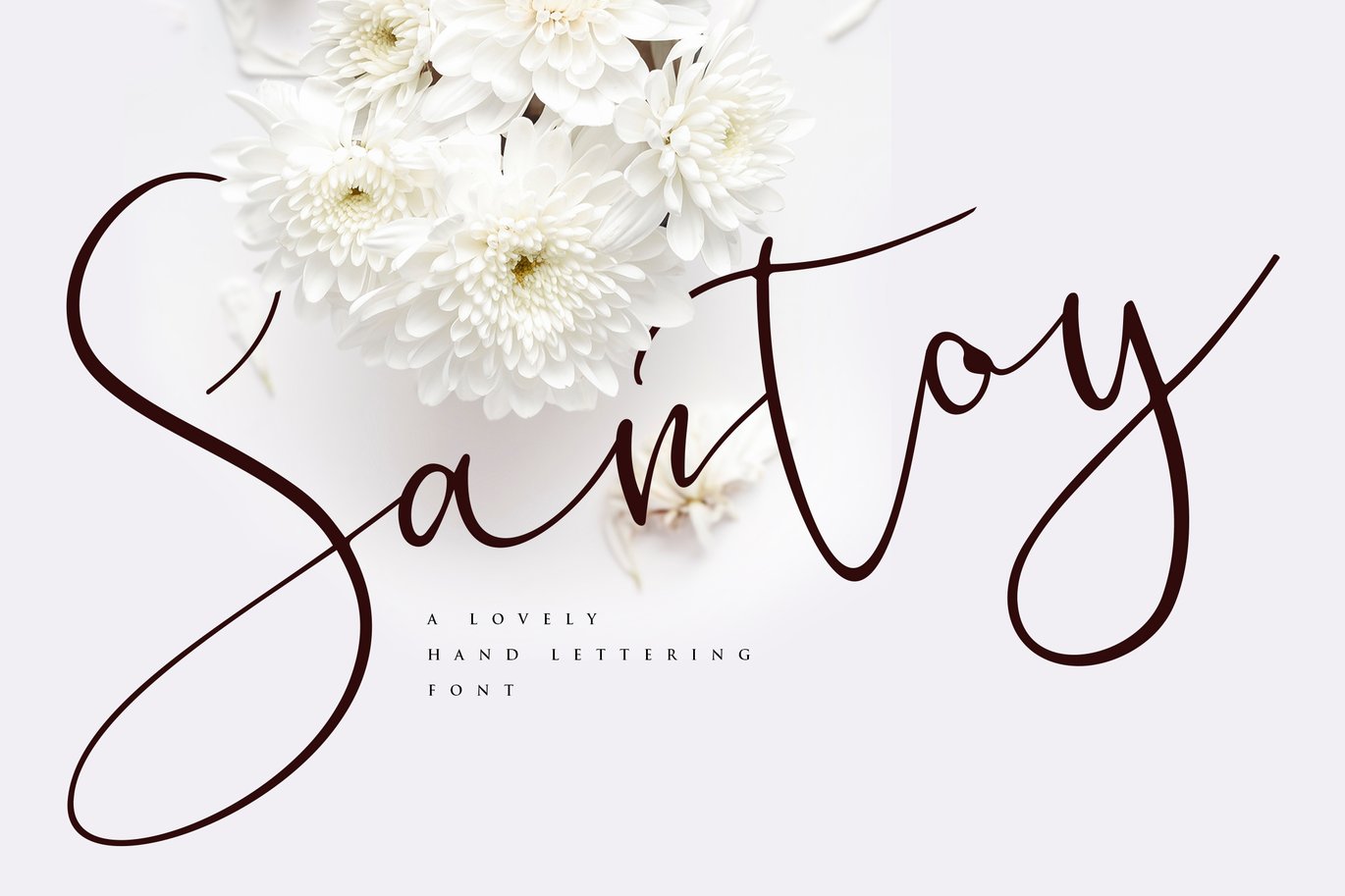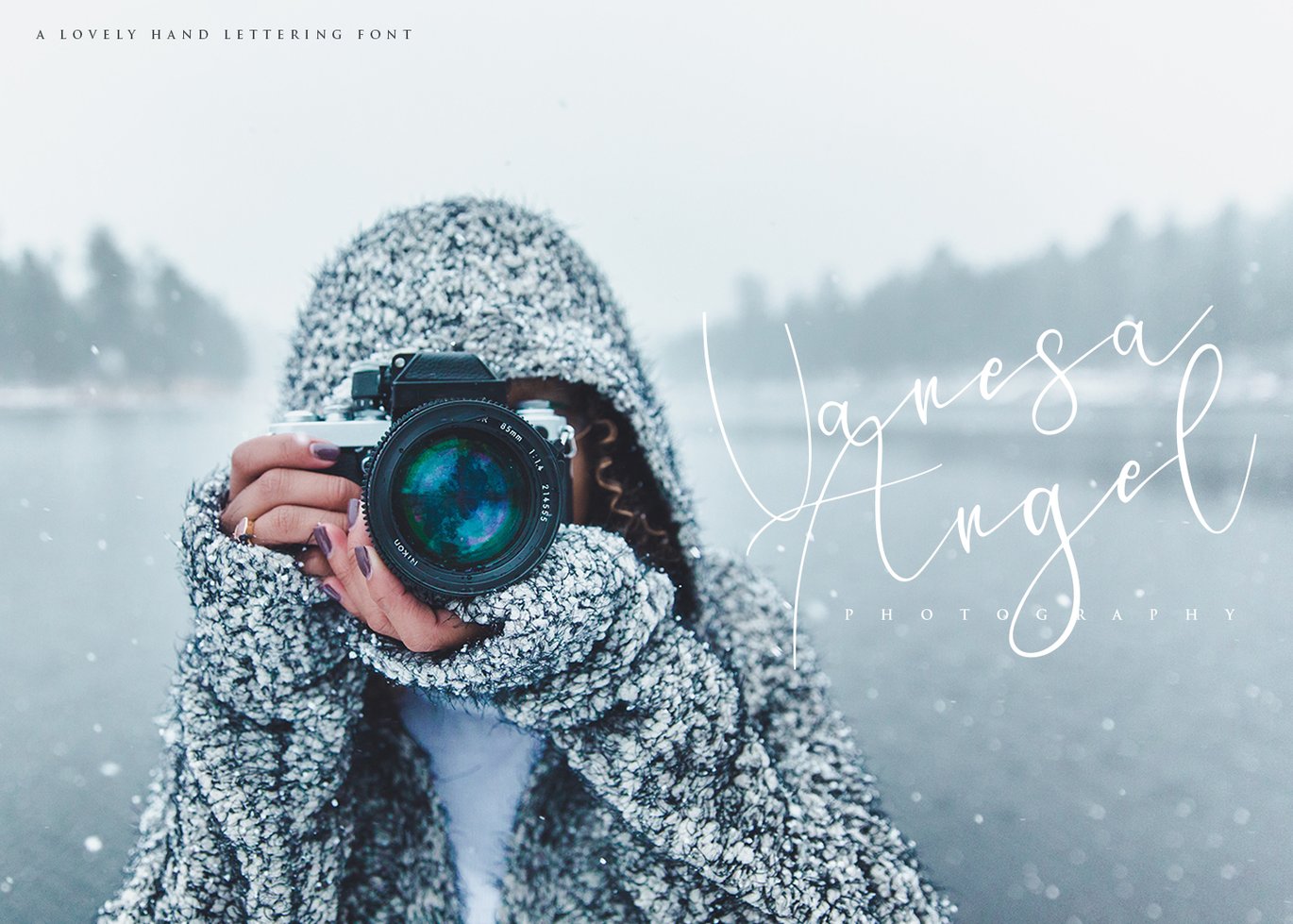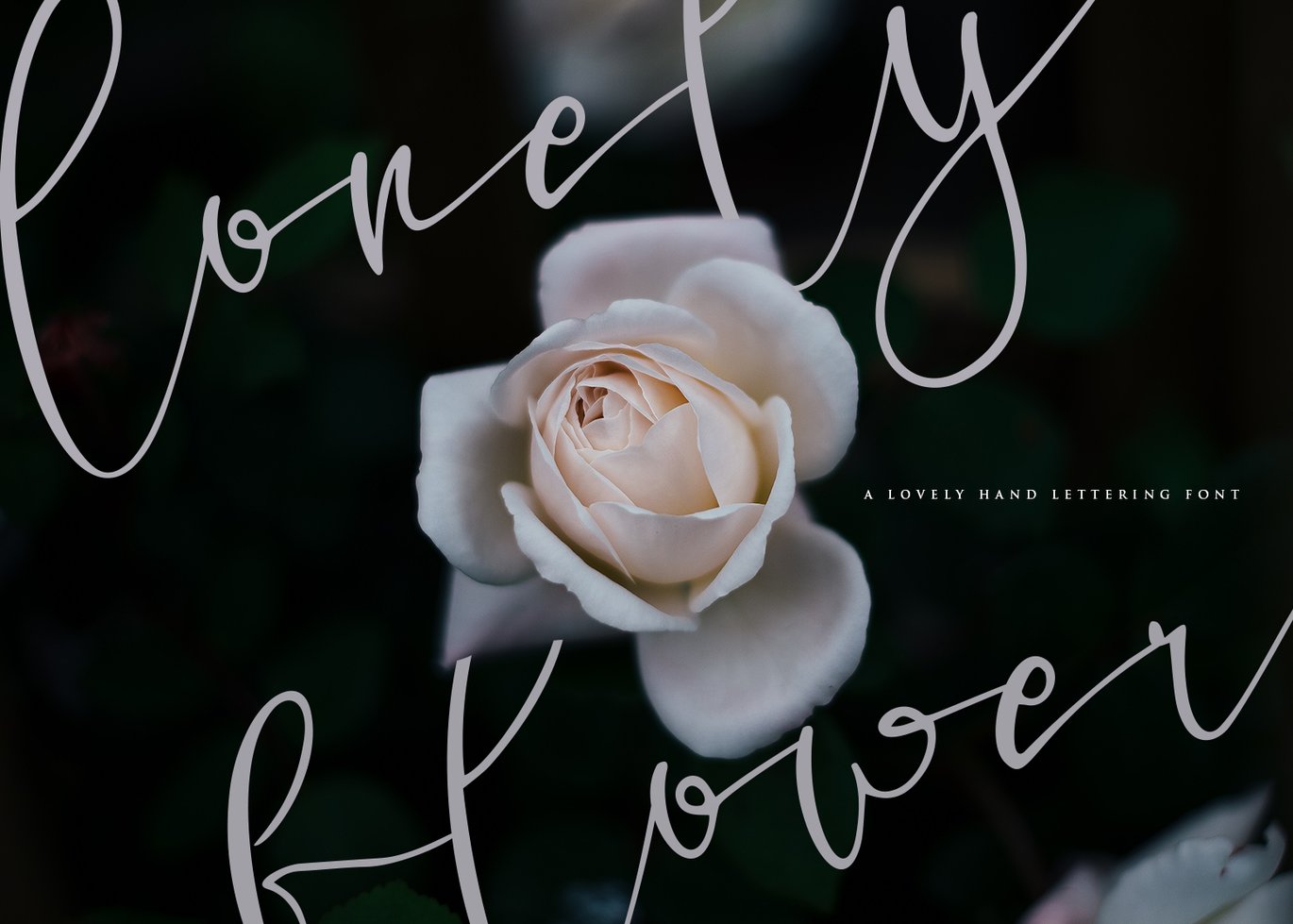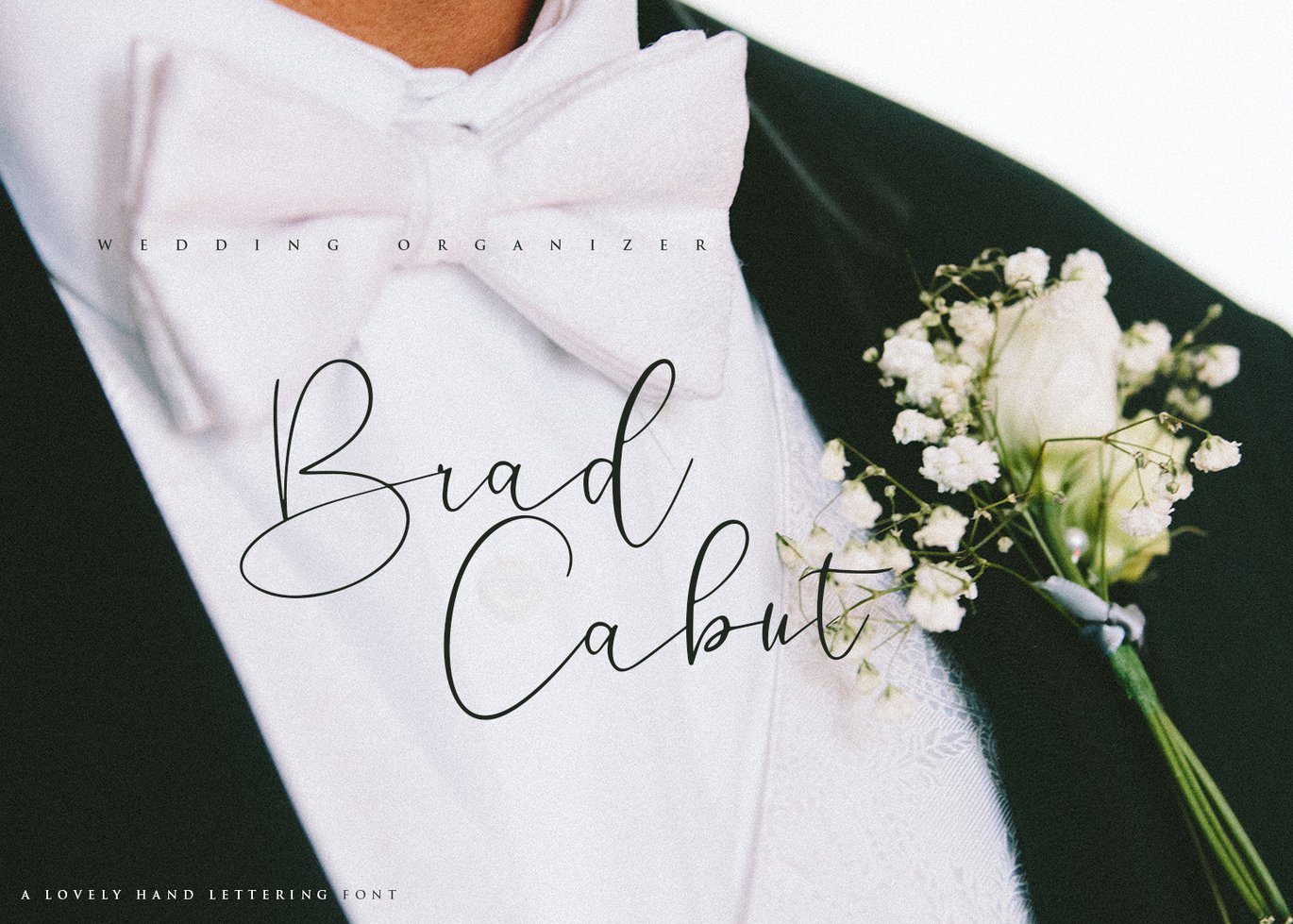
Santoy | Hand Lettering Font
Santoy – Hand Lettering Font with a calligraphy style, So beautiful on invitation like greeting cards, branding materials, business cards, quotes, posters, and more!